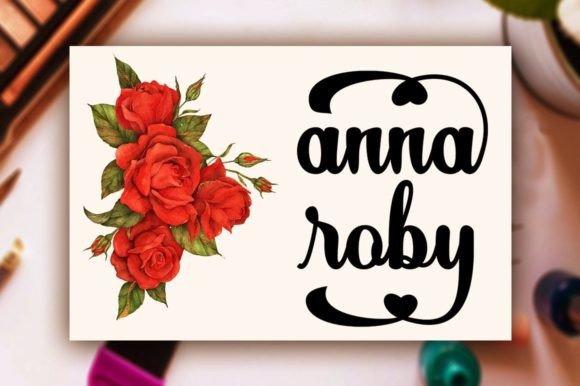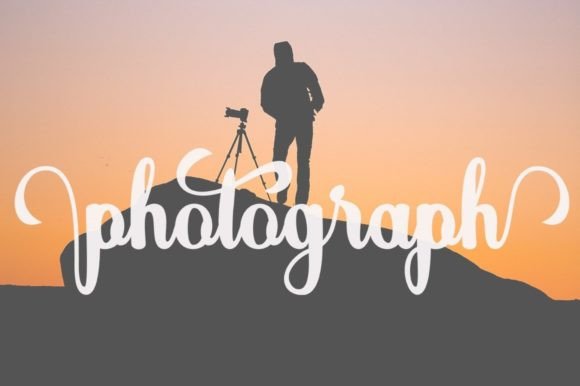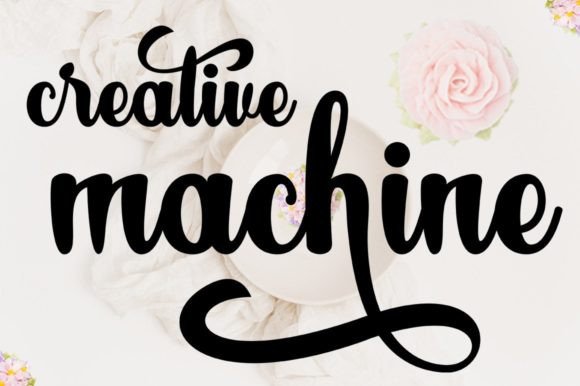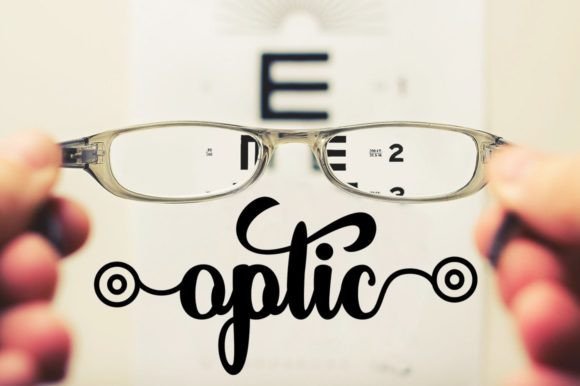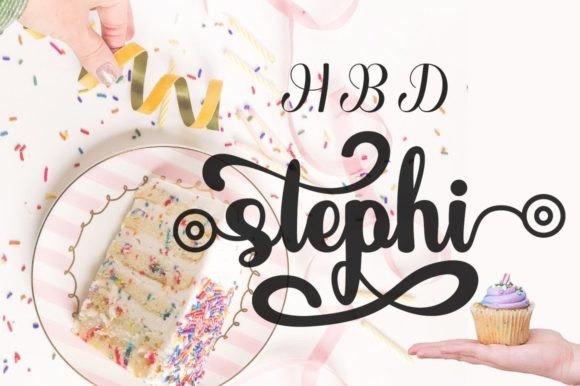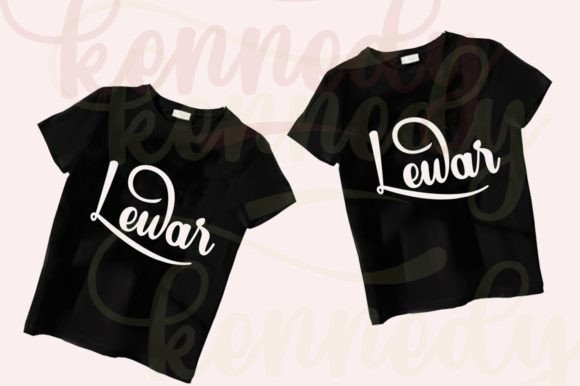
Amanda Moristie Font
“Amanda Moristie” is a retro-styled and sophisticated handwritten font designed to convey messages with confidence, authenticity, and charm. This versatile typeface serves as an excellent choice for a broad spectrum of creative endeavors, ranging from cards to branding, labels, and beyond. With its stylish alternatives and binders, this font provides a plethora of options, making it suitable for any project that requires a touch of elegance.
The retro styling of “Amanda Moristie” adds a timeless quality to your designs, making it a standout choice for projects that seek a classic and sophisticated aesthetic. Whether you’re crafting greeting cards, developing a brand identity, or designing labels, this font’s versatility shines through.
One notable feature is the inclusion of stylish alternatives and binders, allowing you to customize and enhance your designs with unique elements. This flexibility ensures that “Amanda Moristie” is not only stylish but also adaptable to a variety of creative scenarios.
In summary, “Amanda Moristie” is more than just a font; it’s a sophisticated and flexible tool that elevates your creative projects. Its retro styling, combined with stylish alternatives and binders, makes it a go-to choice for those seeking a timeless and elegant typeface. Let “Amanda Moristie” be the font that brings confidence and charm to your designs, turning them into captivating works of art.